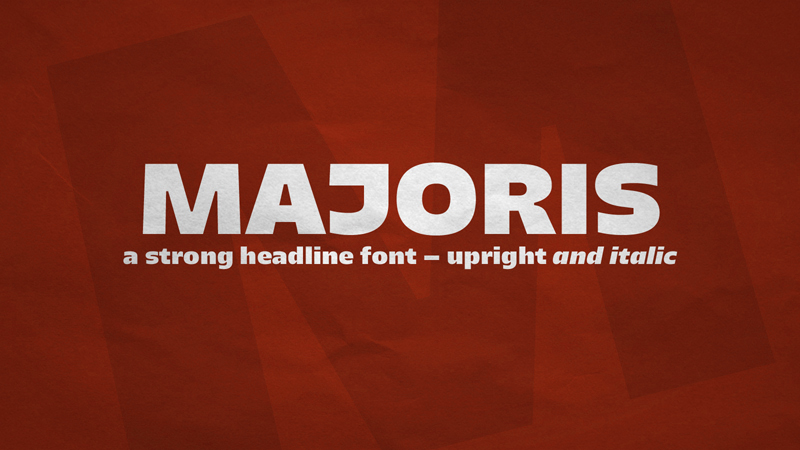
| Font name: | Majoris |
| Author: | Bernd Montag |
| Note by Bernd Montag | |
| Majoris is a racy and technical headline font for personal and commercial use. |